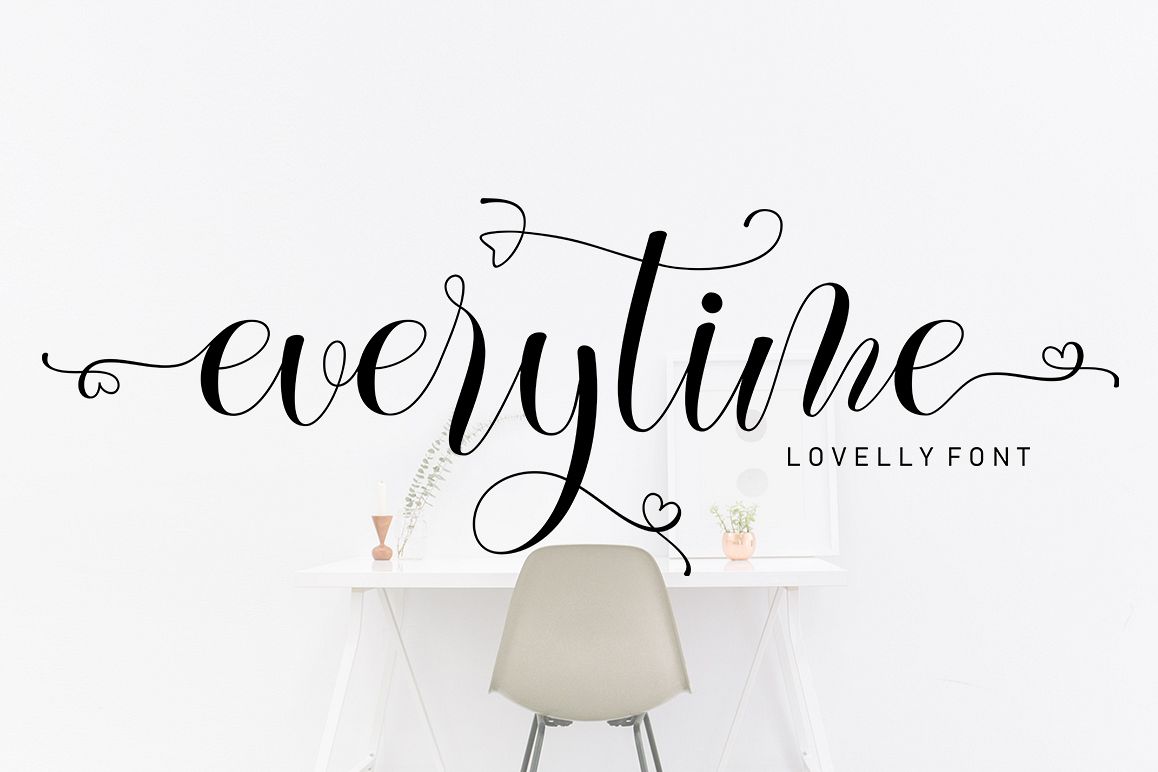
Everytime Script
Everytime Script is a new modern script font with an irregular baseline. Trendy and feminine style. Everytime looks lovely on wedding invitations, thank you cards, quotes, greeting cards, logos, business cards and more. Perfect for using in ink or watercolour. Including initial and terminal letters, alternates and multiple language support.